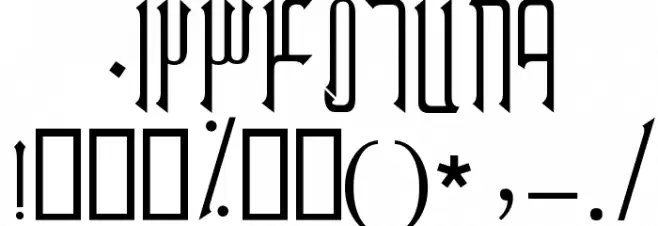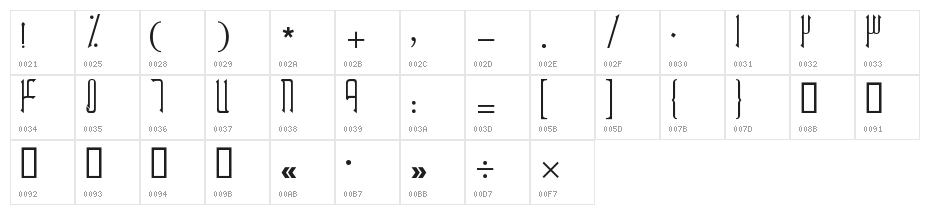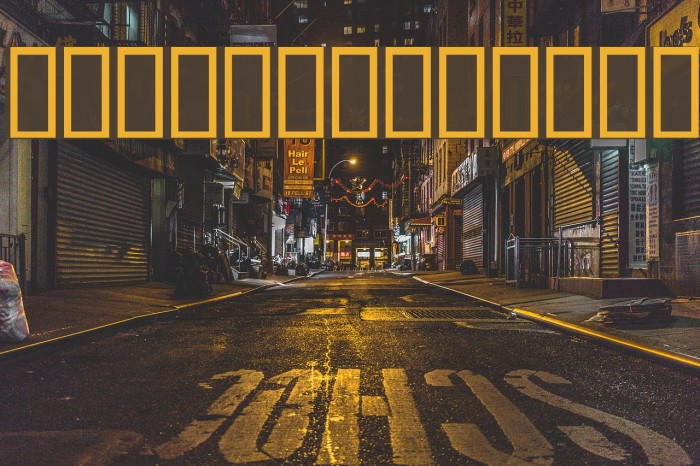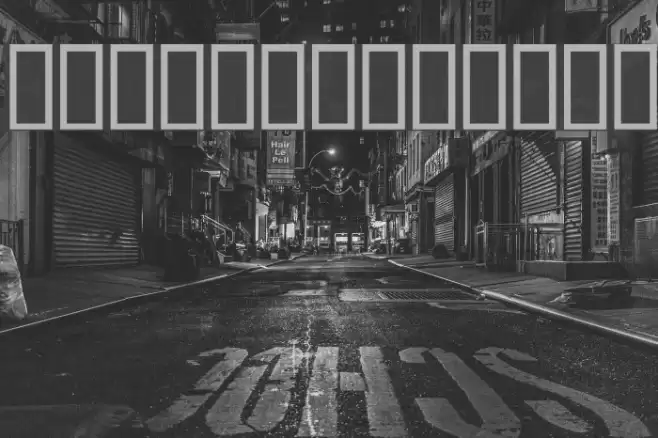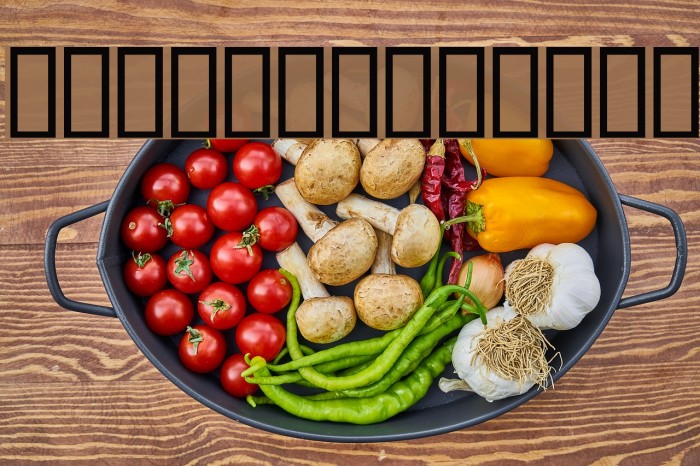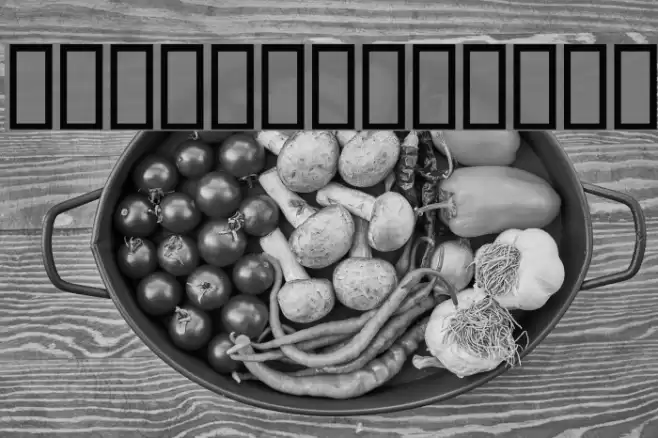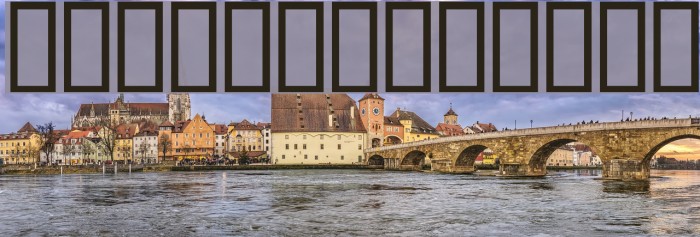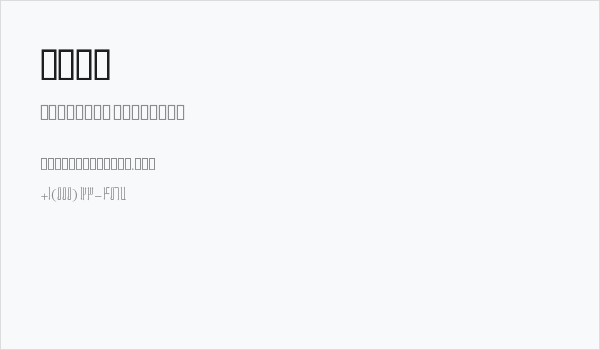
Lady Font
Lady Description
This font features a distinct, angular style with sharp edges and a gothic influence. The characters are tall and narrow, with a high level of detail in each letterform. The uppercase letters exhibit a medieval aesthetic, reminiscent of traditional blackletter scripts. The lowercase letters maintain this theme, offering a cohesive look throughout the typeface. Numbers and special characters are designed to match the overall style, ensuring consistency across all elements. The font's unique appearance makes it suitable for projects that require a historical or dramatic flair.
| Proposed Projects | Ideal for historical-themed designs, book covers, posters, and branding that requires a dramatic or vintage touch. |